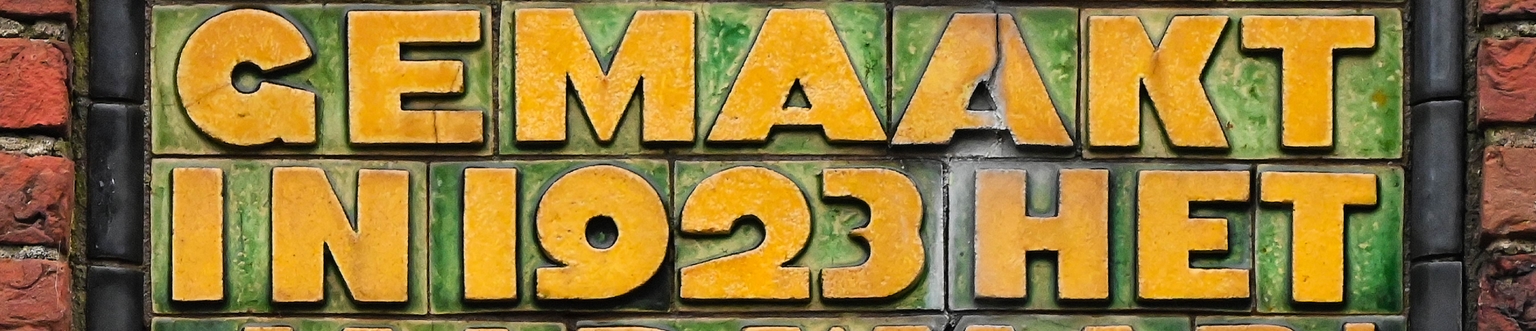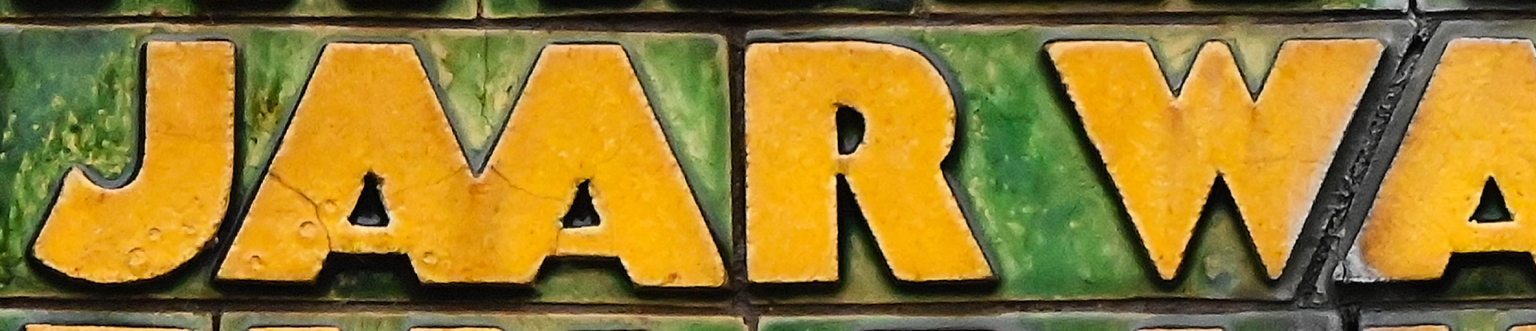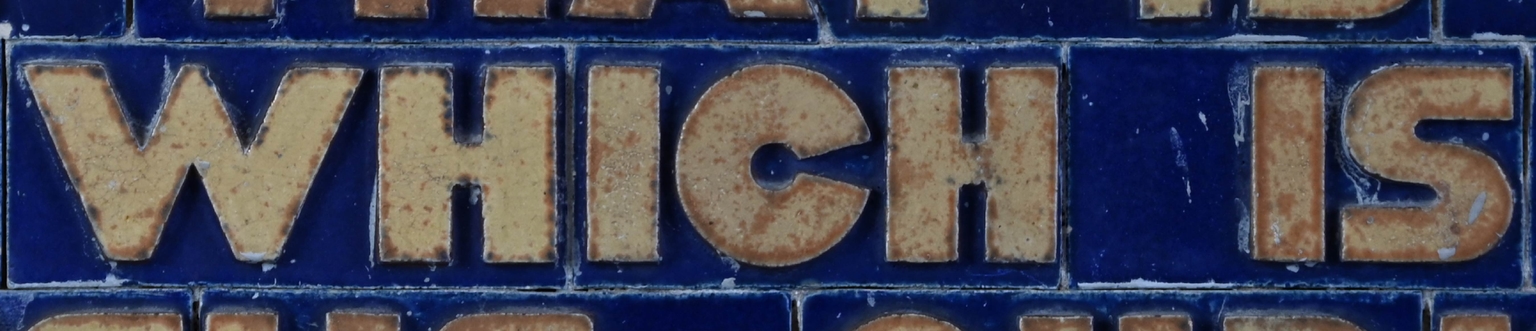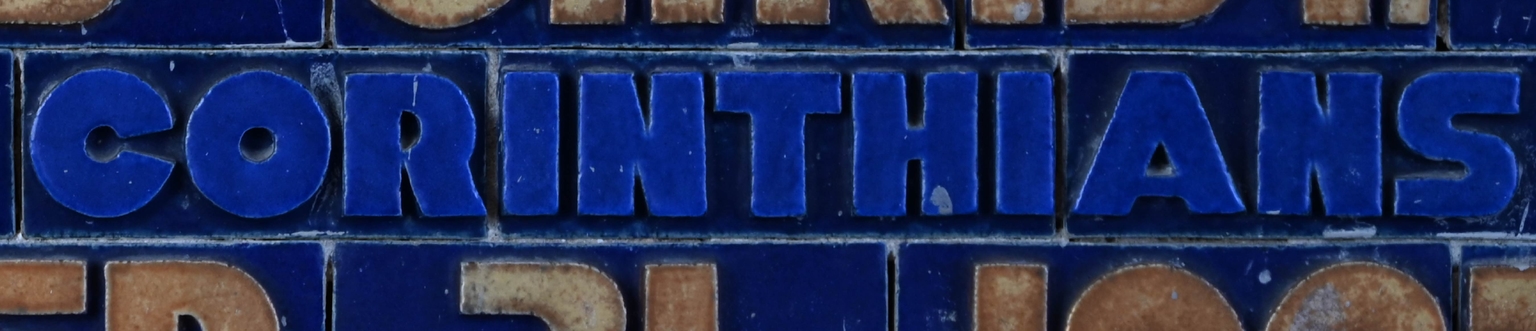
Piet
Piet is a font based on an alphabet model drawn by Piet Zwart (1885–1977) and used in several of his designs. It appears in the poster he produced for the Vickers House company in The Hague, as well as in the beautiful ceramic lettering of two works by Berlage (in whose studio Zwart worked): the building of the First Church of Christ, Scientist, and the column and memorial stone at the Buitenhof, both also located in The Hague.
Ramiro Espinoza fell in love with these letters while studying at Royal Academy of Art (KABK) and, in 2024, while planning the Brutal Types collection, decided it was time to produce a digital revival.
In Piet, numerous aspects of the original model had to be corrected to adapt it to the digital and graphic environment. However, the identity and charm of the original letters were always preserved, as it was clear that they represent an important part of Dutch design heritage.